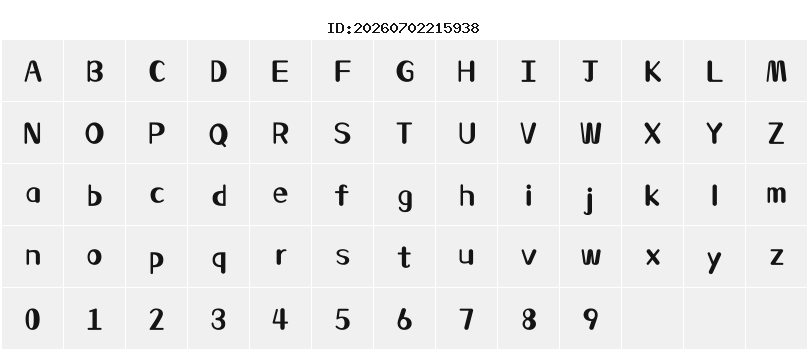
072-上首喵尾体 Preview
• Font Name: 072-上首喵尾体
• Full Font Name: 072-上首喵尾体
About 072-上首喵尾体.ttf
072-上首喵尾体.ttf is a modern, elegant sans-serif font designed for ultimate readability and visual harmony. Perfect for branding, headlines, web design, and print materials.